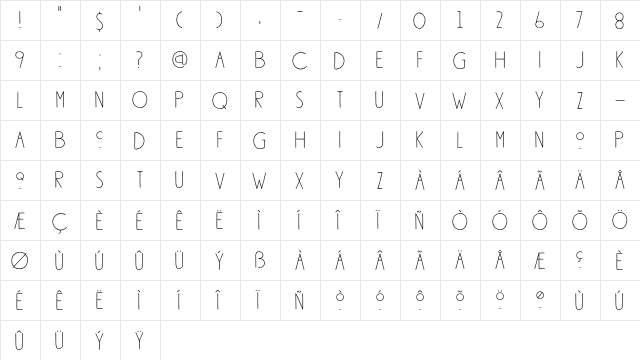
DK Southside Fizz Regular
Design Context for DK Southside Fizz Typeface
DK Southside Fizz takes a measured approach to typography — its balanced proportions and neutral character make it a reliable workhorse for both digital and print work.